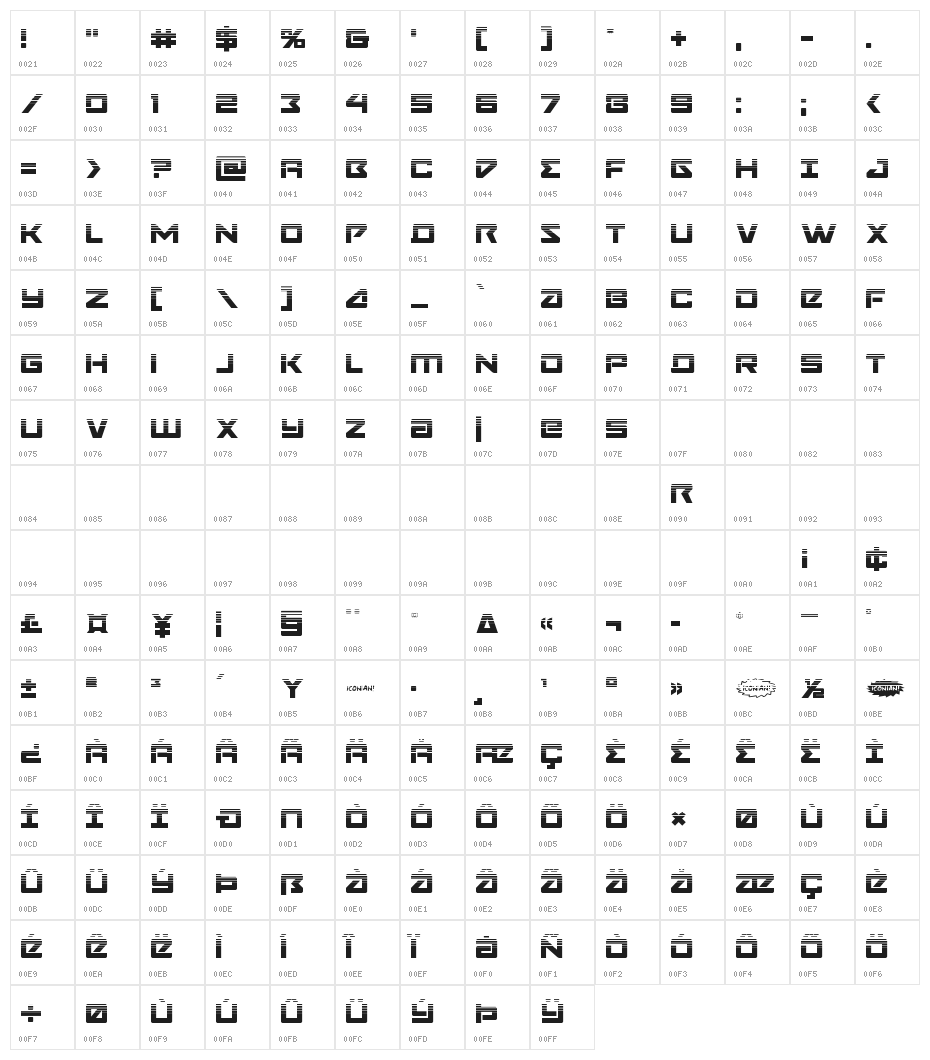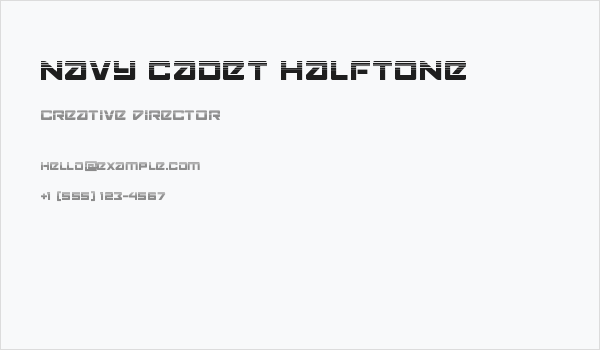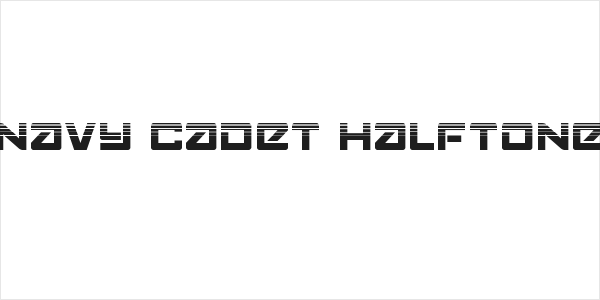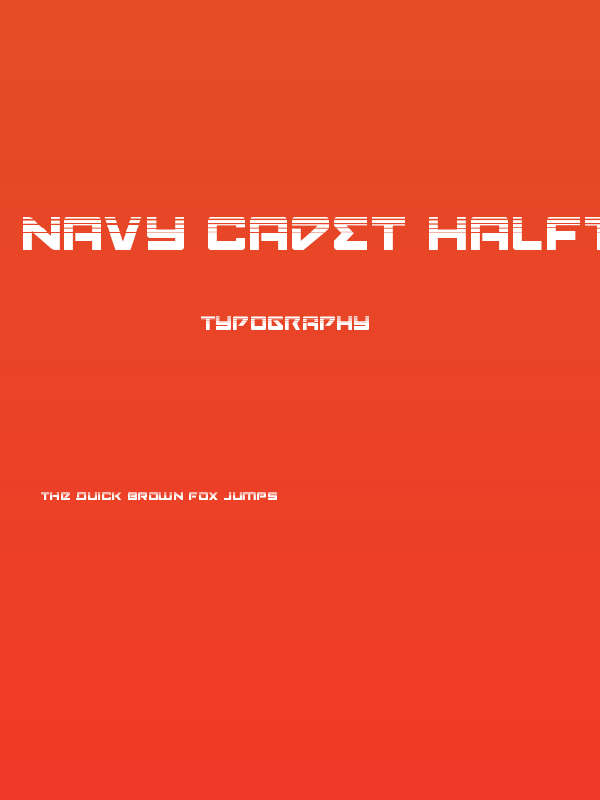
Navy Cadet Halftone Font
Navy Cadet Halftone Description
This font features a bold, geometric design with a distinct halftone pattern that gives it a futuristic and industrial feel. The characters are constructed with sharp angles and straight lines, creating a sense of precision and modernity. The uppercase and lowercase letters maintain a consistent style, with the halftone effect adding depth and texture. The numerals and special characters are equally bold and stylized, making them stand out. This font is ideal for projects that require a strong, impactful visual presence.
| Overall Style | Futuristic, Industrial |
| Proposed Projects | Ideal for technology branding, sci-fi posters, video game titles, and industrial-themed designs. |